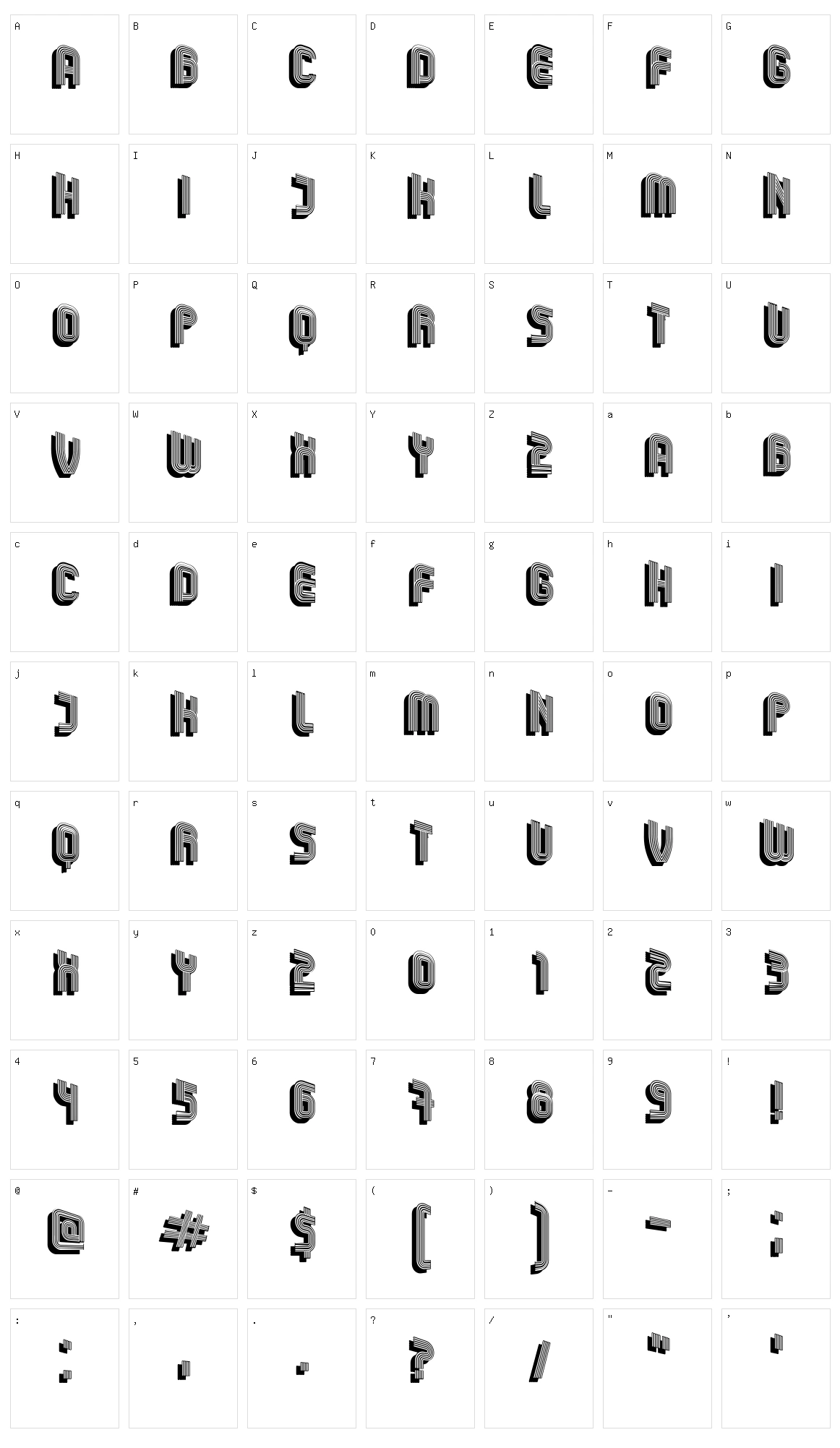
The free font Hobo is carefully designed by Vladimir Nikolic, showcasing a thoughtful balance of creativity and usability and falls under the Groovy font style. When you download the ZIP file, it contains only 69.61 KB of font files, making it lightweight and quick to download. Please review the license details below to understand permitted usage and distribution rights. If license information is not available, we recommend using this font for personal projects only or contacting the author directly for commercial usage permissions.